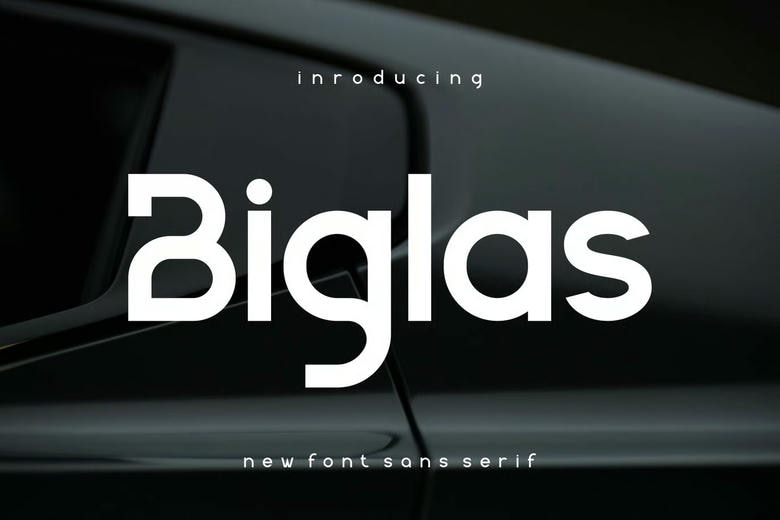
Biglas Font
Biglas is a high quality Sans Serif font that is designed by Auliacreative and is available for free download and personal use. The free version provides all uppercase and lowercase letters and a few special characters too.
This font is perfect for branding projects, Logo design, Clothing Branding, product packaging, magazine headers, or simply as a stylish text overlay to any background image.
Biglas Sans Serif Font